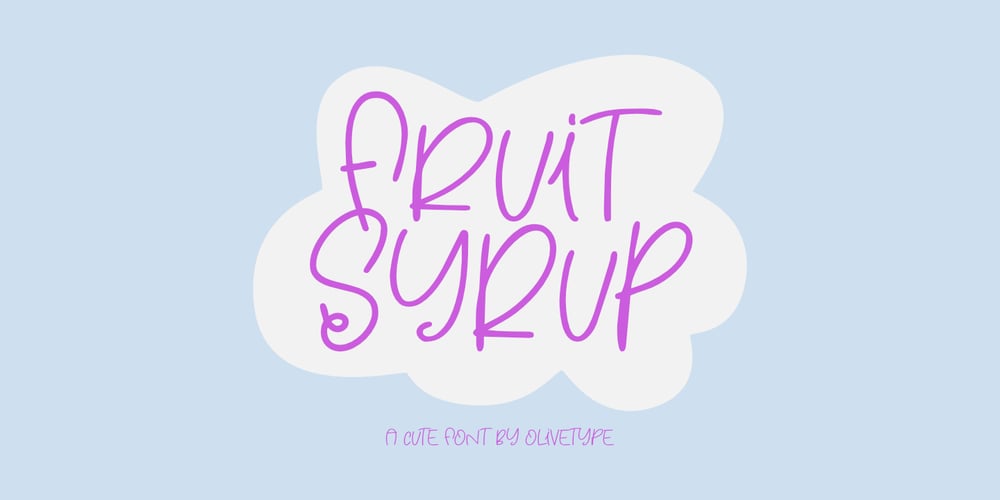
Fruit Syrup Font Family was designed by Nurul Hidayani and published by Olivetype. Fruit Syrup contains 1 styles and family package options. Fruit Syrup is a playful handwritten font with a dancing baseline!. This font is suitable for children craft, teaching material, or any other design that needs a splash of cuteness.So what’s included: Fruit Syrup (OTF) Basic Latin A-Z, a-z, numbers, symbols, and punctuations International Characters. Thank You